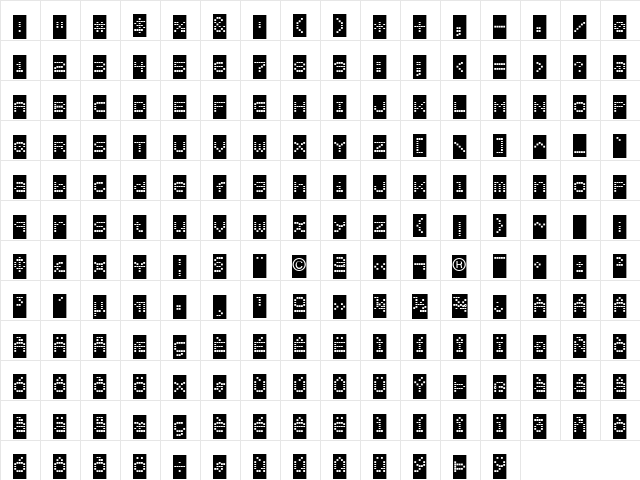
Bubbledot Medium
Design Context for Bubbledot Typeface
Bubbledot is rooted in pixel-grid construction, making it a natural fit for game UI, retro computing aesthetics, and digital nostalgia projects.
A natural choice for retro game titles, chiptune music branding, 8-bit UI, and digital nostalgia projects.
Pro Tip: Pair Bubbledot with flat colour palettes and simple geometric UI elements to reinforce its digital aesthetic.